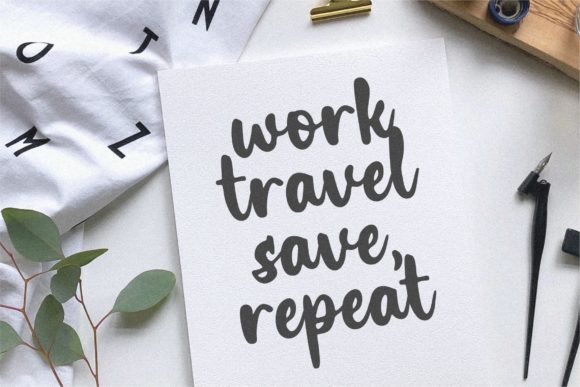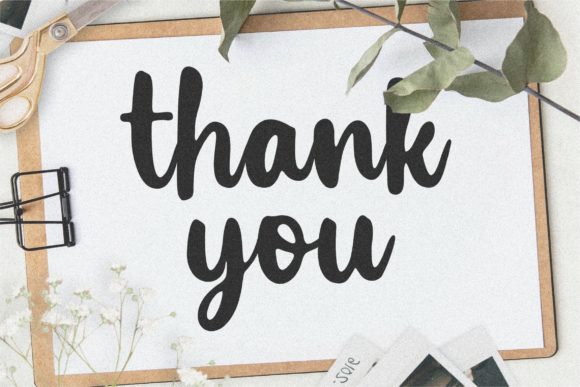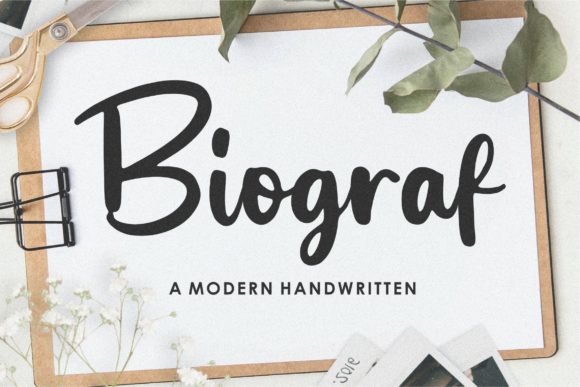
Introducing Biograf Font: The Perfect Handwritten Font for Your Creative Projects
Are you a designer or crafter looking for a font that can add a touch of elegance and joy to your creative projects? Look no further than Biograf Font! This simple, clean, and dainty handwritten font is perfect for writing wedding invitations, cards, branding, printing, or any other design that may need a relaxed touch.
What Makes Biograf Font Special?
Biograf Font is a cursive and joyful font that is designed to bring a sense of warmth and personality to your designs. Its clean and dainty lines make it perfect for creating beautiful and elegant text-based designs that are sure to impress. Whether you’re creating wedding invitations, greeting cards, or branding materials, Biograf Font is the perfect choice.
Key Features of Biograf Font
- Simple and Clean Design: Biograf Font features a simple and clean design that is easy to read and looks great in any design.
- Dainty Handwritten Style: The font’s dainty handwritten style gives it a personal and elegant touch that’s perfect for special occasions.
- Cursive and Joyful: Biograf Font is a cursive font that is full of joy and personality, making it perfect for designs that need a touch of whimsy.
- Highly Versatile: Biograf Font can be used for a wide range of design projects, from wedding invitations to branding materials.
Biograf Font is a must-have for designers and crafters who want to create beautiful and elegant designs that stand out from the crowd. Its unique and personalized style makes it perfect for:
- Wedding Invitations: Create beautiful and elegant wedding invitations that set the tone for the big day.
- Greeting Cards: Design personalized greeting cards for special occasions like birthdays, anniversaries, and holidays.
- Branding Materials: Use Biograf Font to create unique and memorable branding materials like logos, business cards, and letterheads.
- Printing and Packaging: Add a touch of elegance to your printing and packaging designs with Biograf Font.
Tips for Using Biograf Font
Here are some tips for using Biograf Font in your designs:
- Pair with Other Fonts: Pair Biograf Font with other fonts to create a unique and interesting design.
- Use for Headings and Titles: Use Biograf Font for headings and titles to add a touch of elegance to your designs.
- Experiment with Colors: Experiment with different colors to find the perfect combination that works with Biograf Font.
Biograf Font is a beautiful and elegant handwritten font that is perfect for designers and crafters who want to add a touch of joy and personality to their designs. Its simple, clean, and dainty design makes it highly versatile and perfect for a wide range of design projects. Whether you’re creating wedding invitations, greeting cards, or branding materials, Biograf Font is the perfect choice.